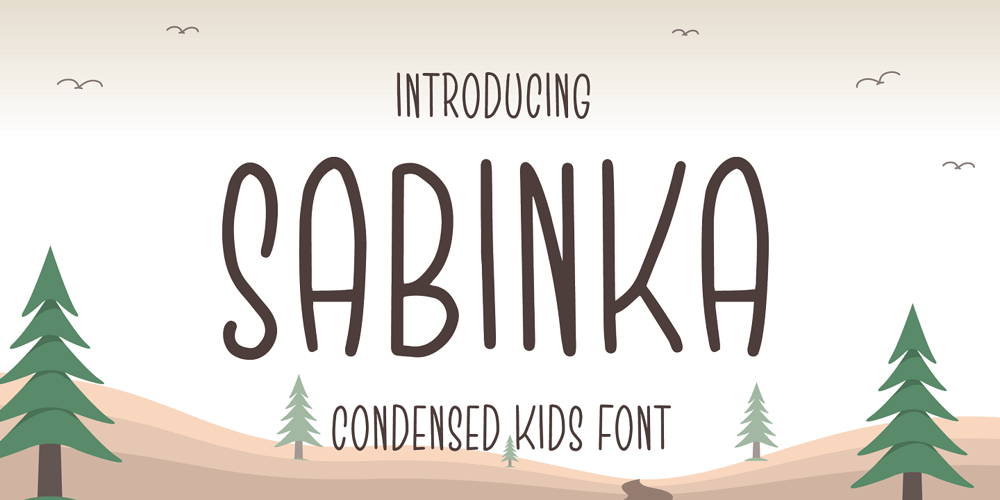
Sabinka
Sabinka font
Sabinka Font Family was designed by Patria Ari Wijonarko and published by Patria Ari. Sabinka contains 1 styles and family package options. Sabinka, a fun condensed fantasy font with bouncy clean shapes. Sabinka is an all-caps font that easy to use as the decoration to make design more beautiful. Sabinka suitable for children’s merchandise, t-shirt, books, poster, title, quotes, and many more!Fonts featured :All caps – Numbers – Punctuation & symbols – Accented characters